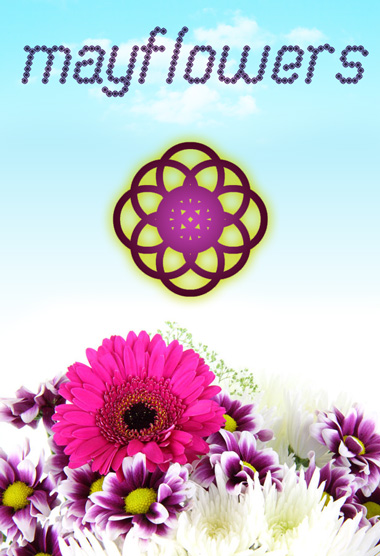
Mayflowers
April showers bring Mayflowers. Not really anymore. California drought. look close. its all nudged circles.
Nice nudgin'
As I said: higher plane.